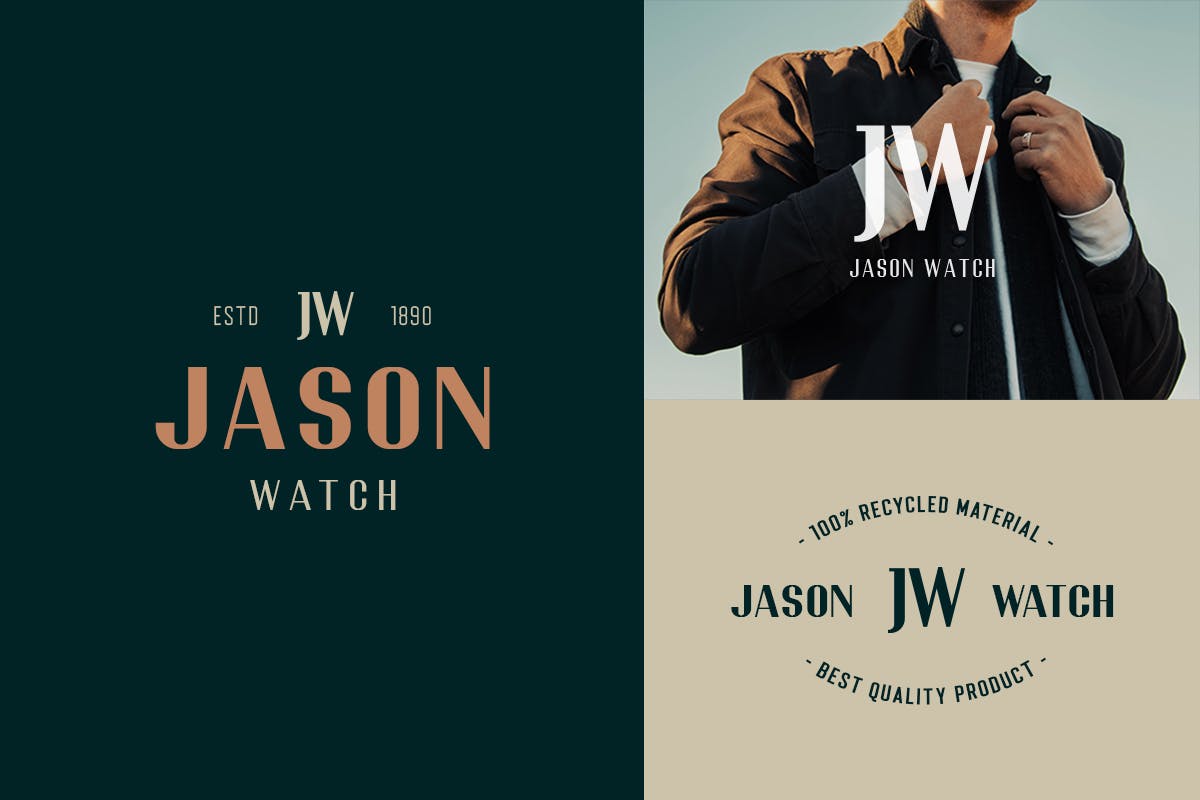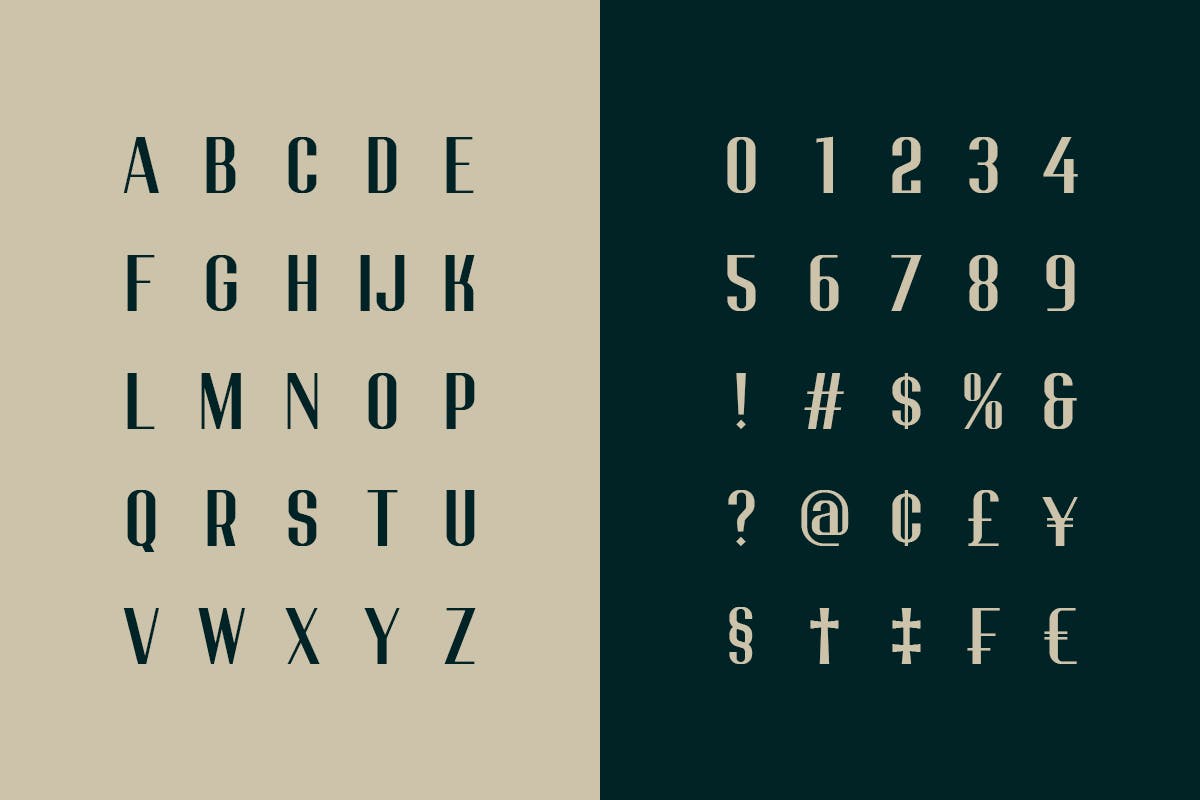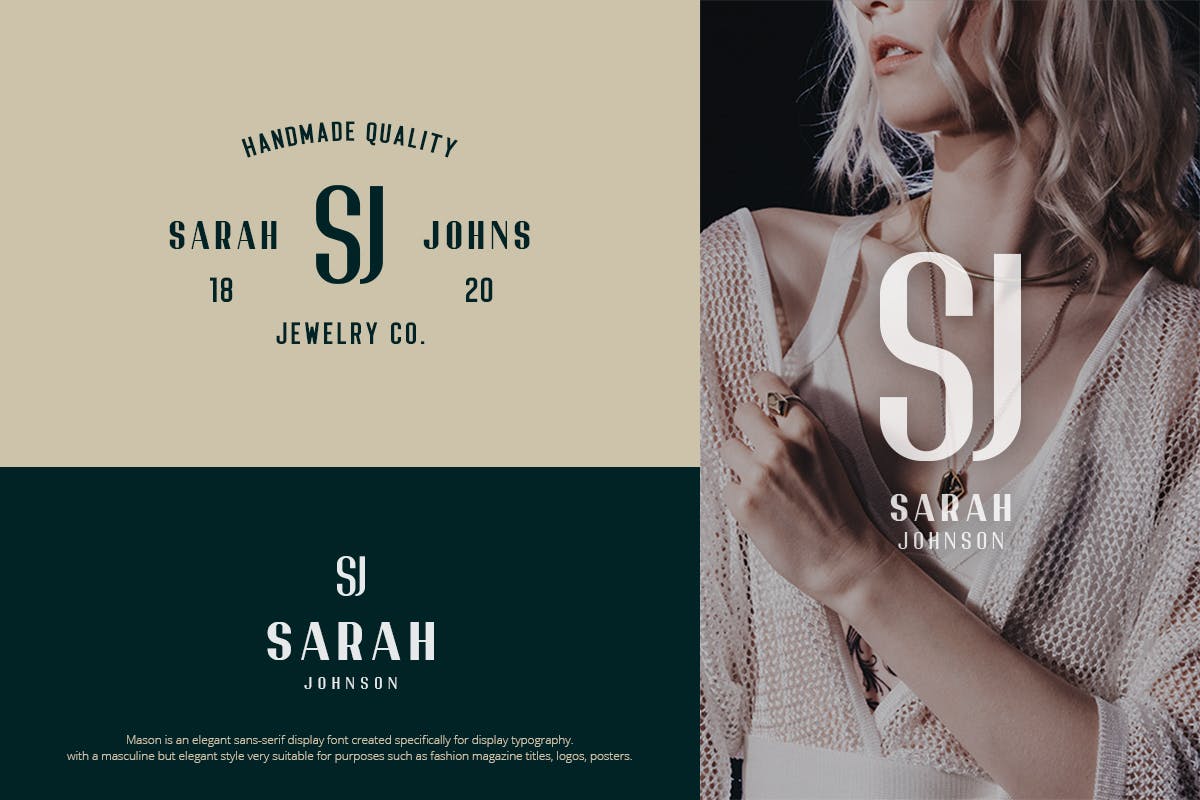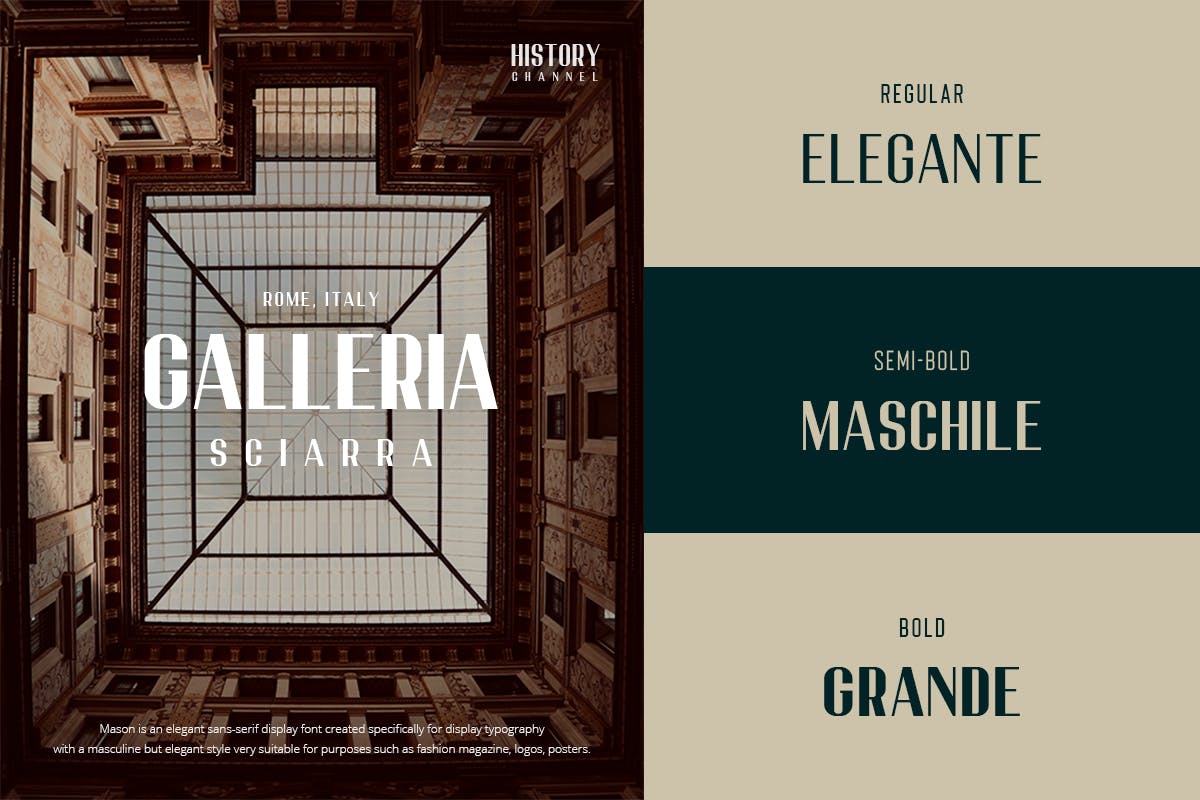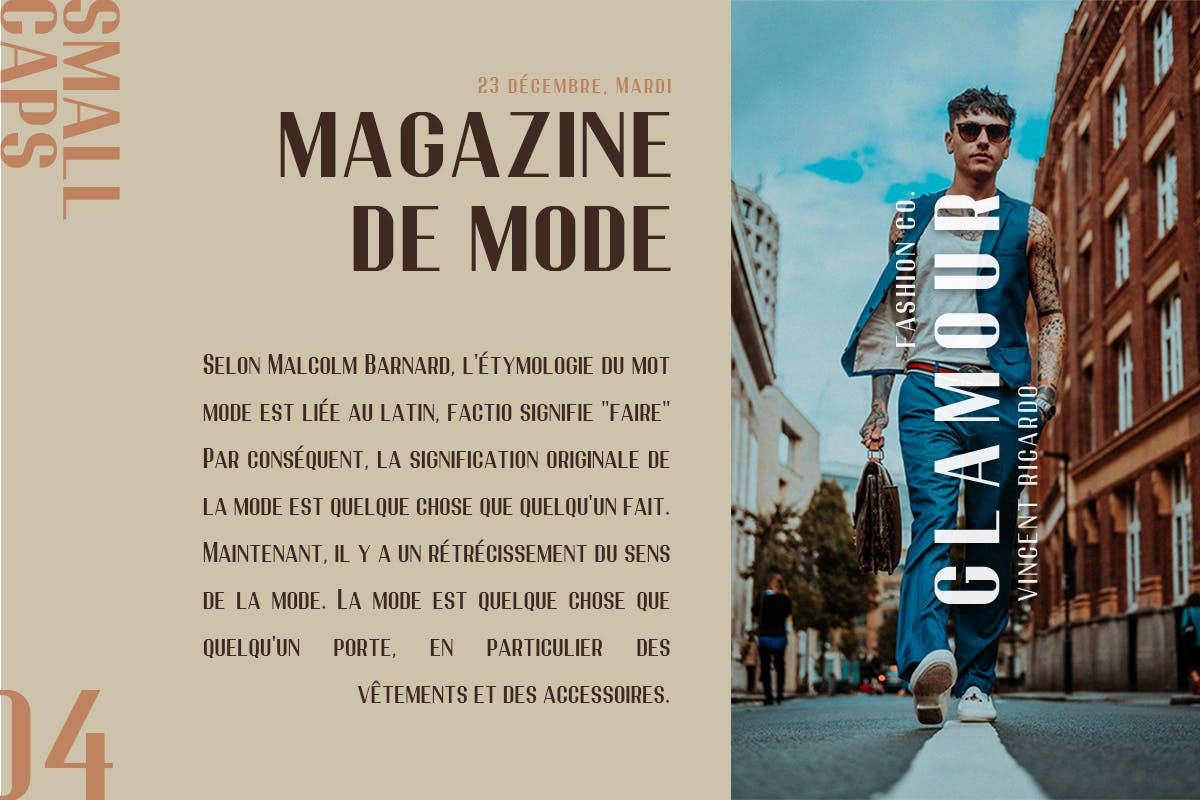
Free Mason Elegant Typeface Font
Free Mason Elegant Typeface Font is an elegant sans-serif display font. It is looking more perfect for display typography. This font has multi-purposes use such as fashion magazine titles, logos, posters, websites, and more. It is available for two format files OTF and TTF that you can install on your devices as well. However, this free font is coming with a personal use license, but if you want to use it on commercial use you can get the premium version.